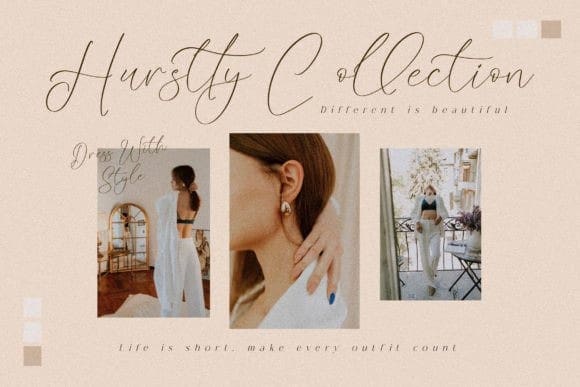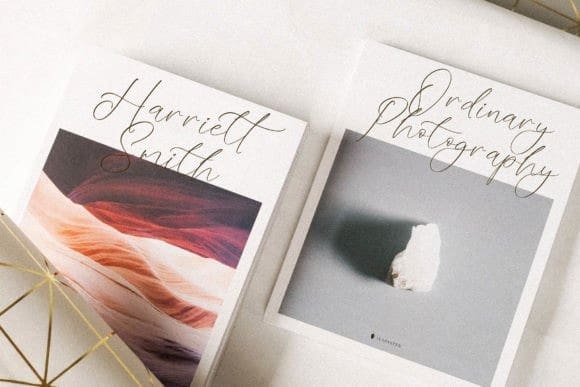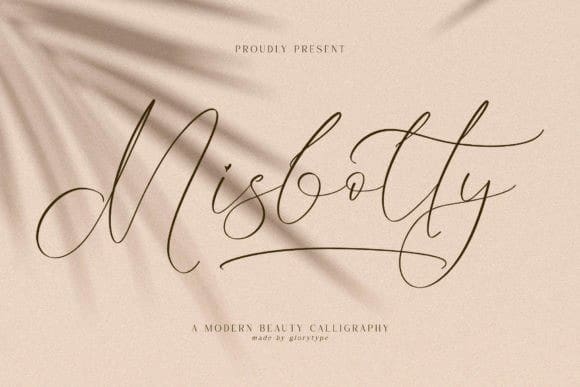
Misbotty Script Font
Misbotty Script Font is a delicate and elegant signature script font. Its distinct and well-balanced letters make this font a masterpiece. Fall in love with its incredibly versatile style and use it to create spectacular designs!